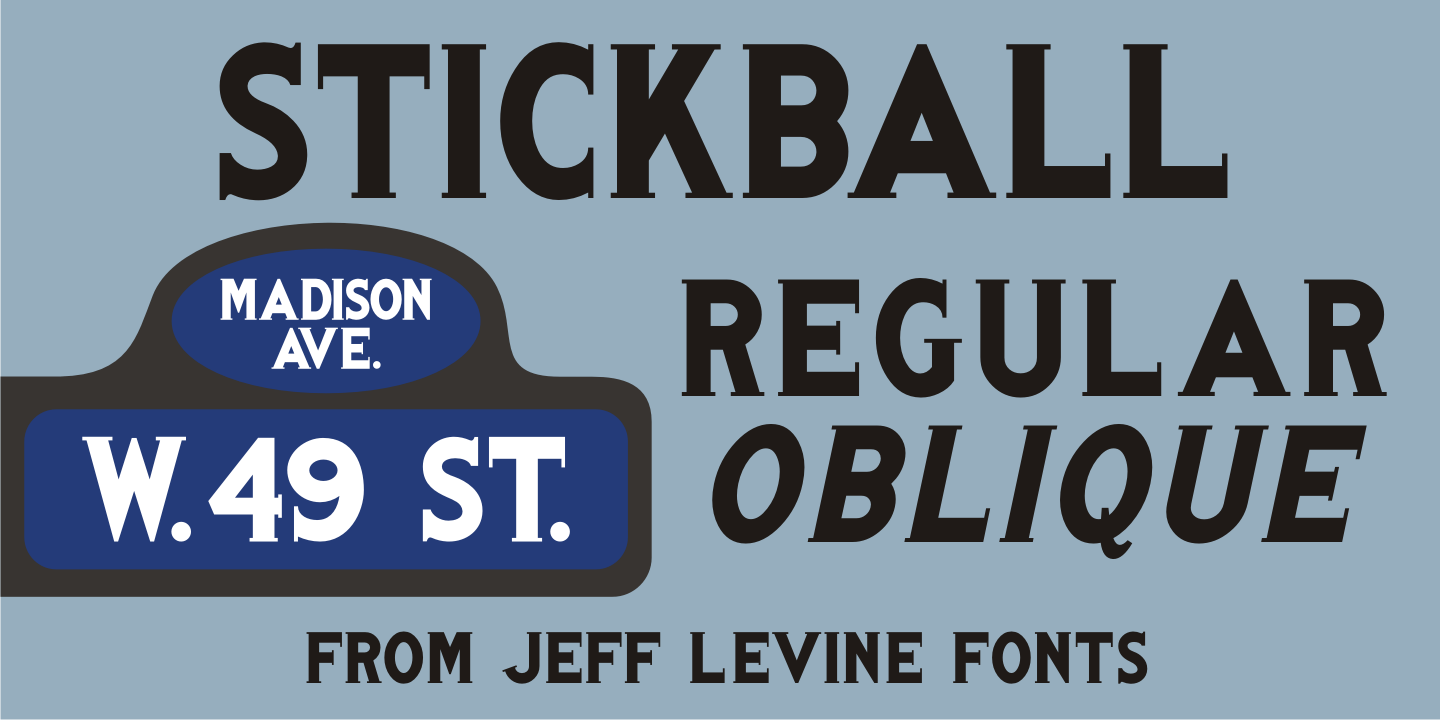
Stickball
Using examples of antique street signs from New York City, Stickball JNL recreates the iconic lettering in a digital typeface and is available in both regular and oblique versions.
For a nostalgic touch, a blank street sign is located on either the solid or broken bar keystrokes.